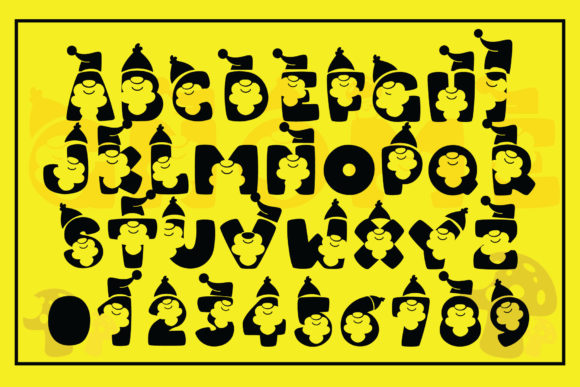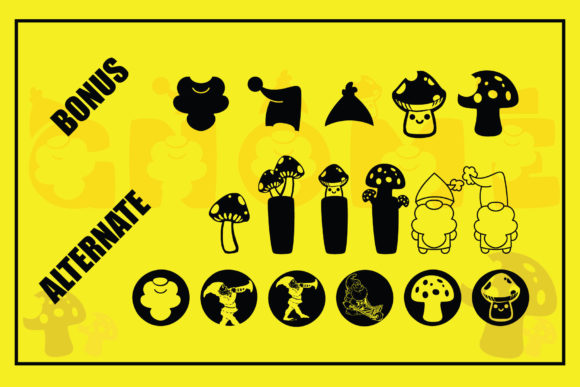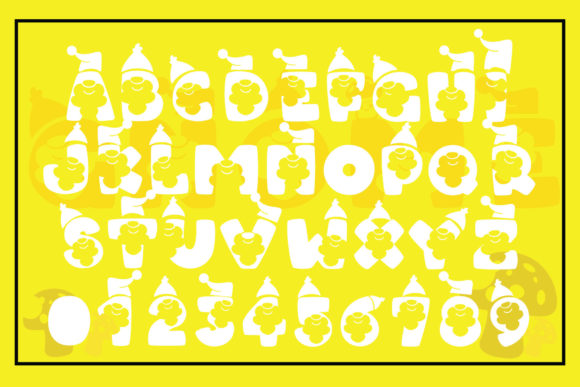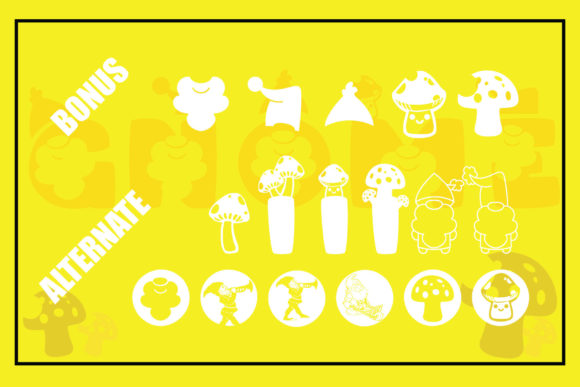
Gnome Font: A Whimsical and Playful Typeface for Creative Designs
Are you looking for a font that can add a touch of magic and playfulness to your designs? Look no further than the Gnome Font! This unique and incredibly cool decorative font is perfect for a variety of design ideas, particularly those related to children, cartoons, and games. In this article, we’ll explore the features and benefits of the Gnome Font, and how it can elevate your designs to the next level.
What is Gnome Font?
Gnome Font is a decorative typeface that is designed to bring a sense of whimsy and fun to your designs. Its unique and quirky style makes it perfect for designs that require a playful and imaginative approach. The font is PUA encoded, which means you can access all of the glyphs and swashes with ease, giving you maximum flexibility and creative control.
Key Features of Gnome Font
- Unique and quirky style: Gnome Font has a one-of-a-kind design that will set your designs apart from the rest.
- PUA encoded: The font is encoded with PUA (Private Use Area) characters, allowing you to access all of the glyphs and swashes with ease.
- Multilingual support: Gnome Font supports multiple languages, making it a great choice for designers who work with international clients.
- Scalable: The font is highly scalable, ensuring that it looks great at any size.
Design Ideas with Gnome Font
Gnome Font is a versatile typeface that can be used for a wide range of design ideas. Here are a few examples:
- Children’s book illustrations: The font’s playful and whimsical style makes it perfect for children’s book illustrations, book covers, and educational materials.
- Cartoon and animation projects: Gnome Font is a great choice for cartoon and animation projects, adding a touch of humor and playfulness to your characters and storyboards.
- Game design: The font’s unique style makes it a great choice for game design, particularly for games that require a fun and imaginative approach.
- Crafting and DIY projects: Gnome Font can also be used for crafting and DIY projects, such as making signs, banners, and other decorative items.
Benefits of Using Gnome Font
There are many benefits to using Gnome Font in your designs. Here are a few:
- Adds a touch of whimsy and fun: Gnome Font can add a touch of magic and playfulness to your designs, making them more engaging and appealing.
- Increases creativity: The font’s unique style can inspire creativity and imagination, helping you to come up with new and innovative design ideas.
- High-quality design: The font is designed to high standards, ensuring that it looks great in your designs.
Tips for Using Gnome Font
Here are a few tips for using Gnome Font in your designs:
- Use it sparingly: Gnome Font is a bold and playful font, so it’s best to use it sparingly to avoid overwhelming your design.
- Experiment with different sizes and colors: The font looks great at different sizes and colors, so don’t be afraid to experiment and find the perfect combination for your design.
- Pair it with other fonts: Gnome Font can be paired with other fonts to create a unique and interesting design.
In conclusion, Gnome Font is a unique and incredibly cool decorative font that can add a touch of magic and playfulness to your designs. Its PUA encoded design makes it easy to use and flexible, and its multilingual support and scalability make it a great choice for designers who work with international clients. Whether you’re working on a children’s book illustration, a cartoon project, or a game design, Gnome Font is a great choice. So why not give it a try and see how it can elevate your designs to the next level?